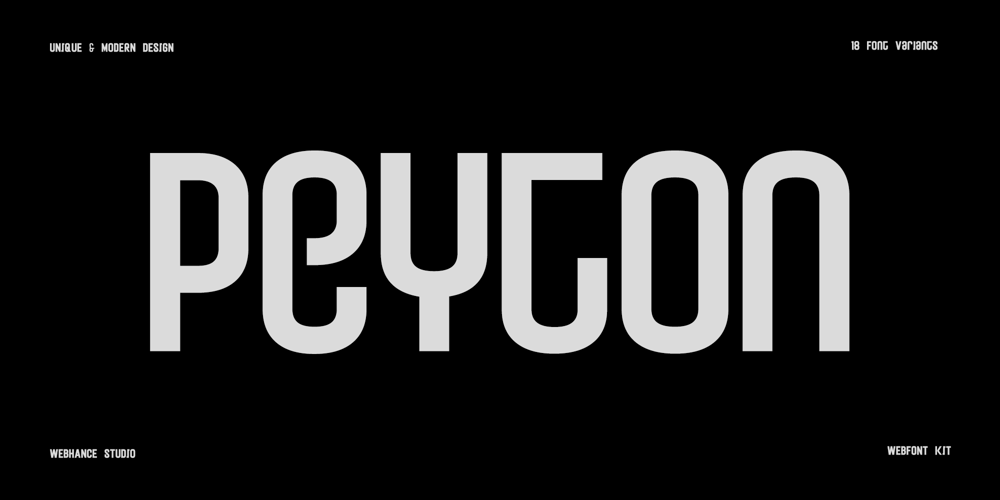
Peyton Display
Peyton Display font
Peyton Display Font Family was designed by Alwin Johnson and published by Webhance. Peyton Display contains 18 styles and family package options. Peyton font family.Peyton is a minimalist font family with a unique and modern look. Created wonderfully for display, branding and logo projects. Peyton is also suitable for headlines, posters, signages, just anything that requires a creative Look. And it’s ready to make an enduring impression on your design projects.Package Contents Uppercase and Lowercase letters Numerals & Punctuation 09 Font Weights 09 Italic Variants Total 18 Font Variants